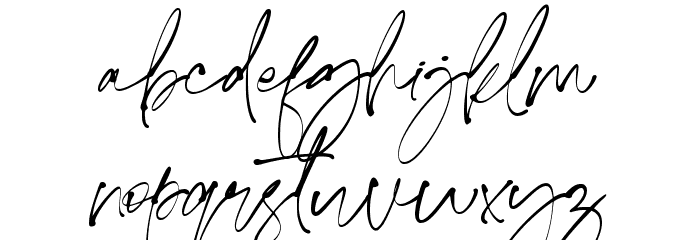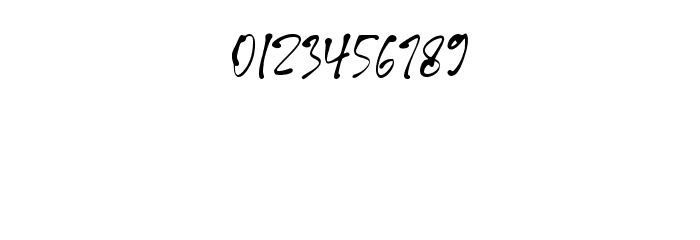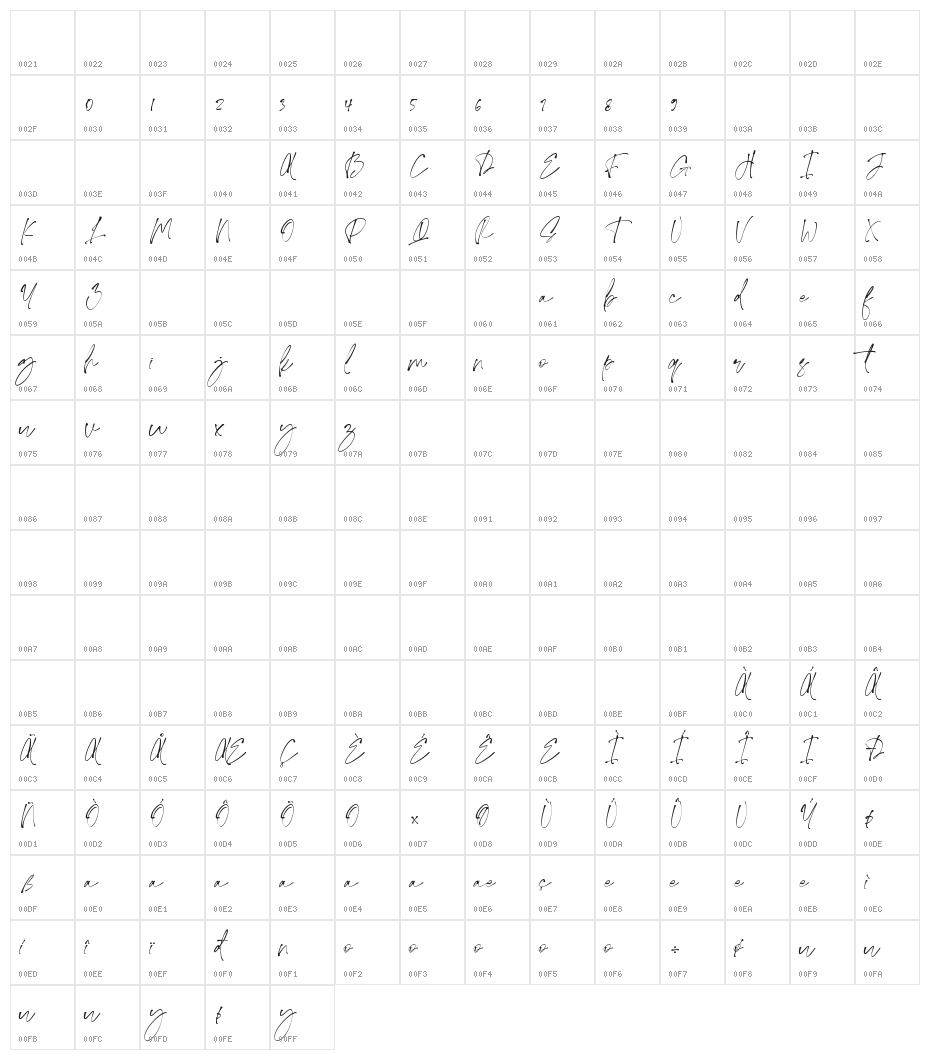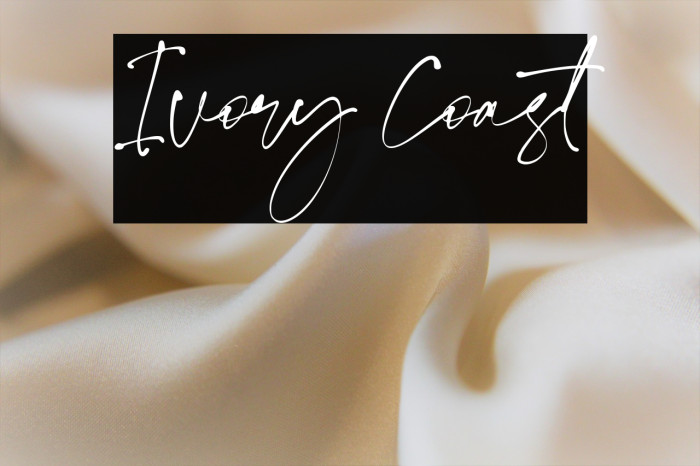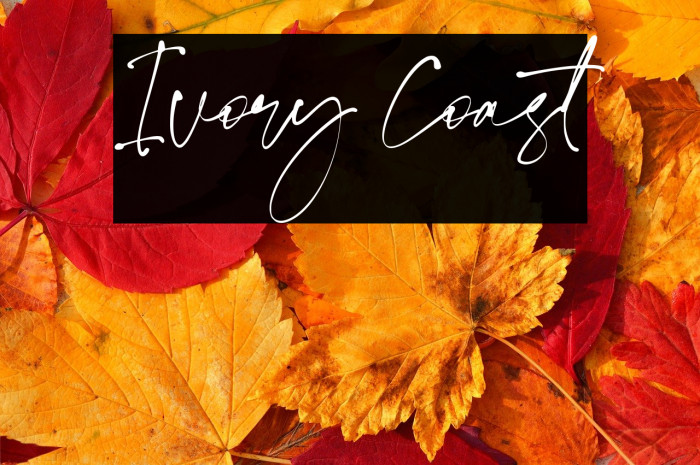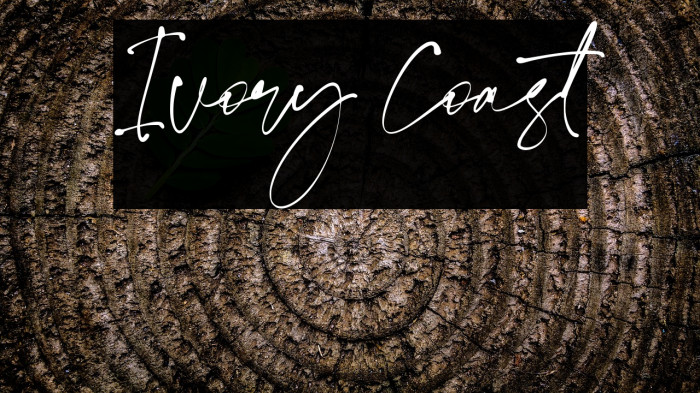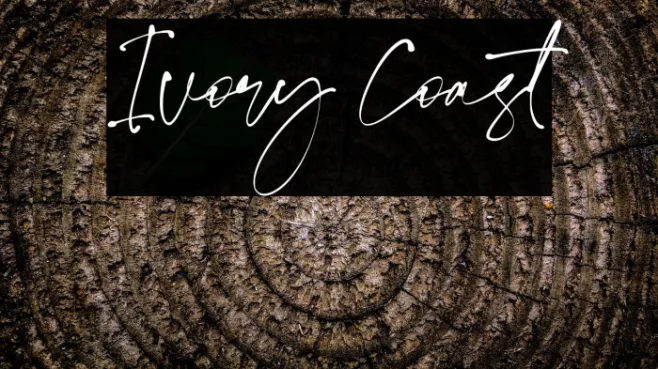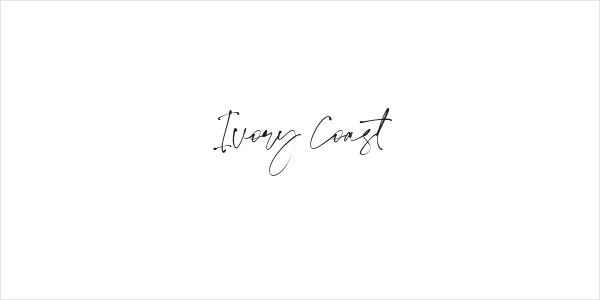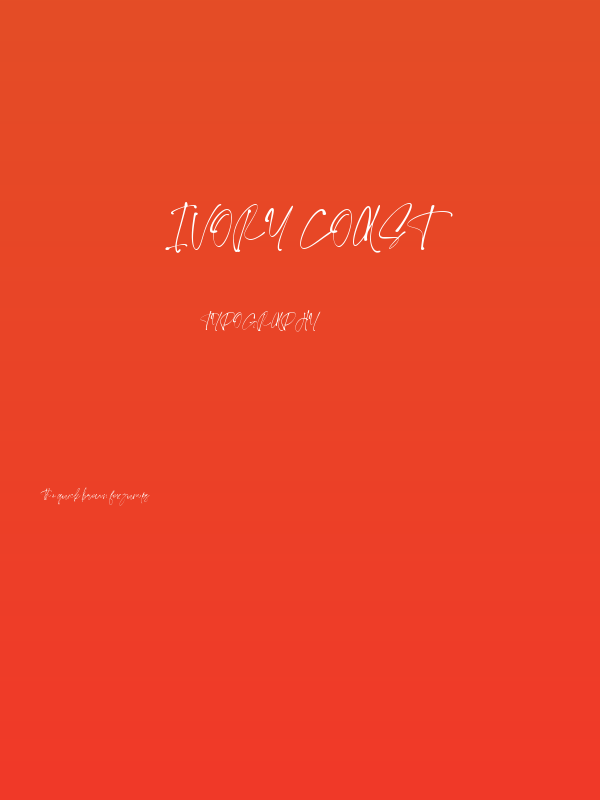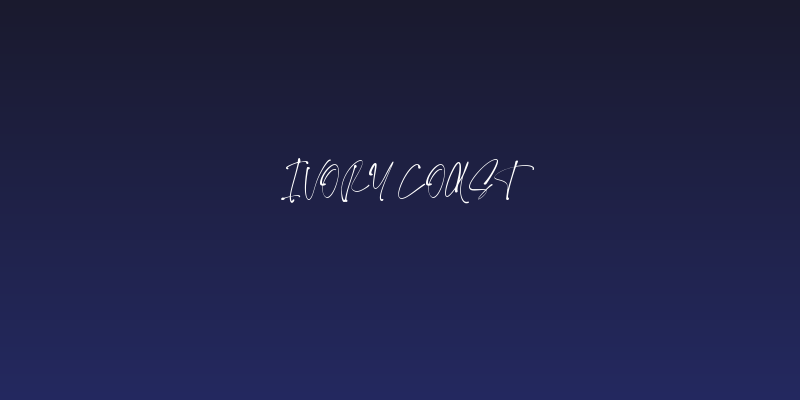
Ivory Coast Font
This font exudes a sense of elegance and fluidity, characterized by its cursive, handwritten style. The letters are connected with sweeping, graceful strokes that vary in thickness, giving it a dynamic and lively appearance. The uppercase letters are bold and prominent, while the lowercase letters maintain a consistent flow, enhancing readability. The numbers are distinct yet harmonize well with the overall script style. This font's artistic flair makes it suitable for creative and expressive projects, where a personal touch is desired.
A cursive, handwritten font with elegant, flowing strokes.
- Proposed Projects: Ideal for wedding invitations, greeting cards, personal branding, and artistic projects.
- Use Case: Logos, Invitations, Artistic projects